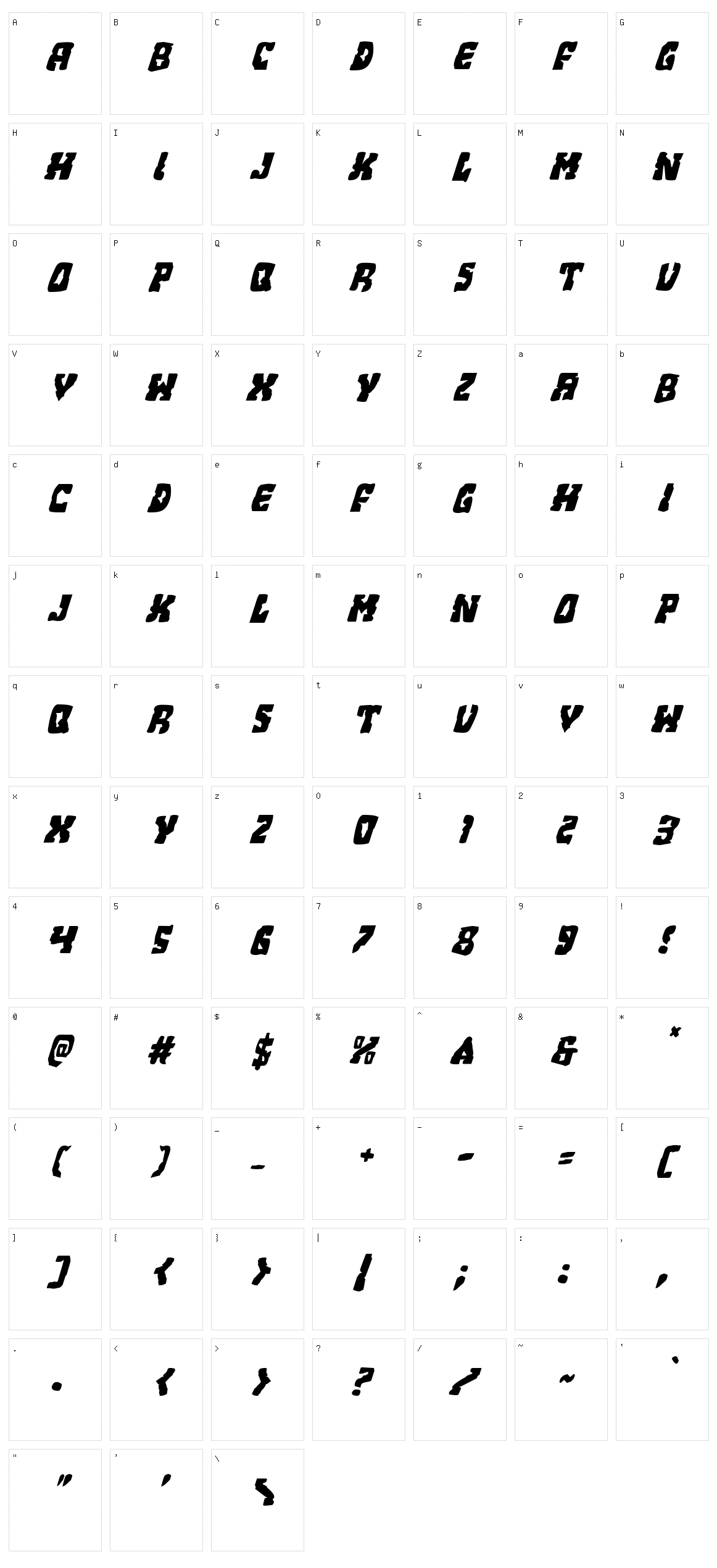
The free font Beastian is carefully designed by Iconian Fonts, showcasing a thoughtful balance of creativity and usability and falls under the Horror font style. When you download the ZIP file, it contains only 402.5 KB of font files, making it lightweight and quick to download. Please review the license details below to understand permitted usage and distribution rights. If license information is not available, we recommend using this font for personal projects only or contacting the author directly for commercial usage permissions.
This font comes with the following 11 versions: Regular, Italic, Condensed, Condensed Italic, Expanded, Expanded Italic, 3D, 3D Italic, Leftalic, Rotated and Rotalic.